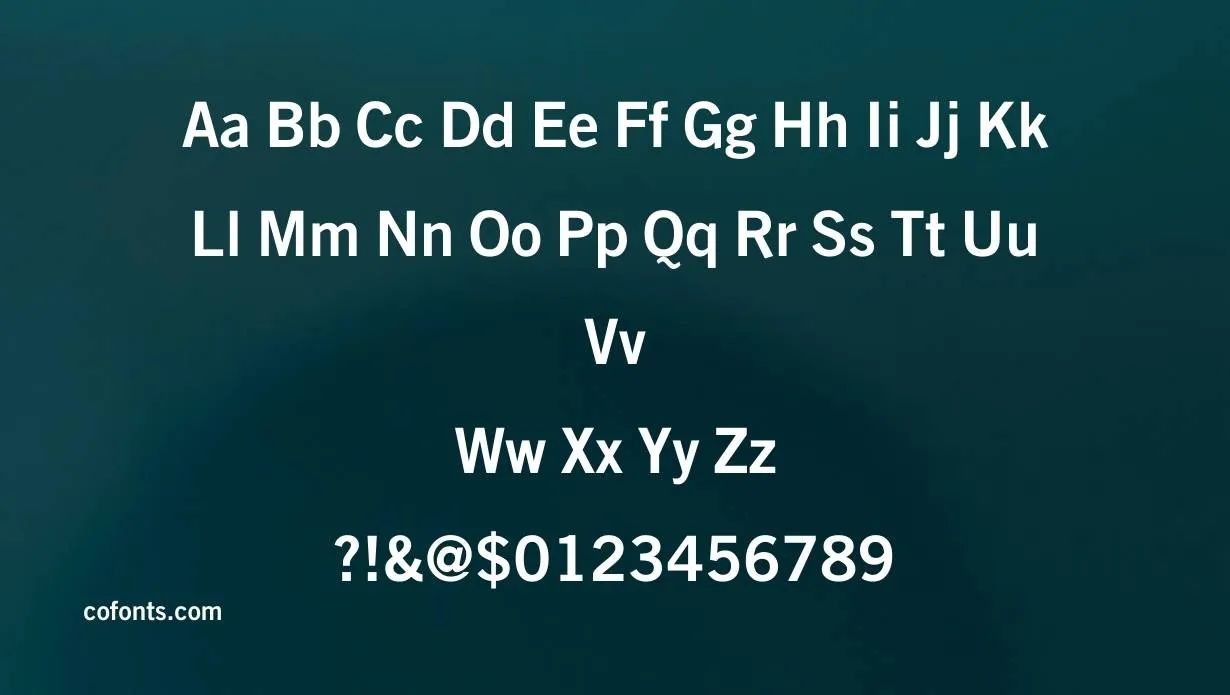
The typeface is also very classy when paired with glober font. Designing a unique design using this font is easy and can easily satisfy the needs of both clients and designers.
Using this Sans Serif font, you can create modest and appealing designs for both content and designs, helping you with long-term projects. The typeface makes an ideal choice for various designs, such as invitations or business cards, banner ads, wedding cards, and book covers.
Usage of Abba Logo Font
You will see or print the letters the same way after they have been installed into your operating system. Its stylish, bold designs make this font popular among designers who want to use any font in their designs. You can easily compare this font with the avenir font.
Various private uses can be made using this stunning font, including website themes, channel designs, and thumbnails. It is recommended for logo designing purposes for different famous websites and blog designs to use the free version of this typeface.
Many web originators utilize this dazzling and eye-catching font in each field of the plan like websites and blog headlines, titling of planning purposes, and so on.
You’ll be able to compose brief and long sections, documentation, assignments, and other composing ventures by employing a free form of this font.
Many businessmen utilize this typeface for making their shop advertisements, shop names, and other private businesses. For labeling and making layouts, this typeface is additionally extraordinary for this.
Abba Logo Font Family View